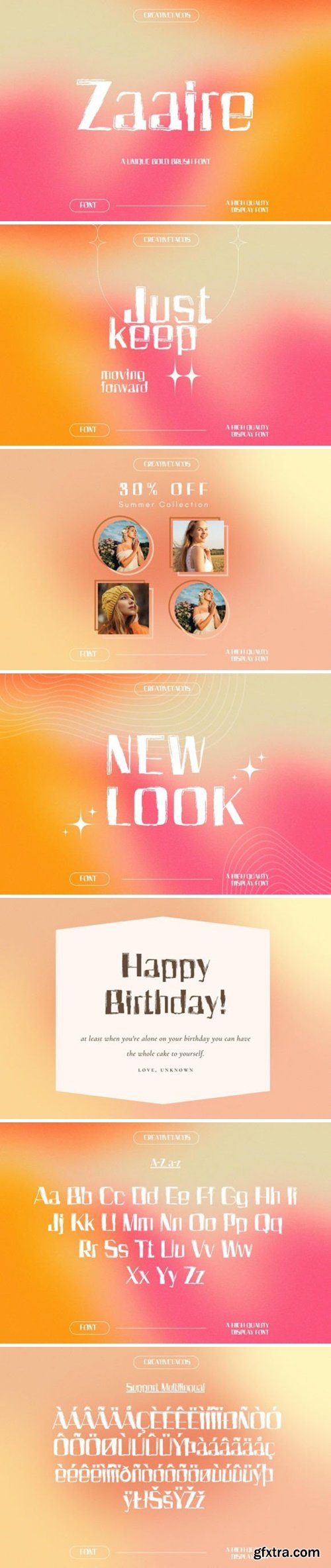
扎阿里刷字体
Zaaire is a creative typeface that adds a touch of artistic flair to any design project with its unique brush strokes and intricate details. It is your go-to font for just about anything! Use it for packaging, slideshows, logos, headlines, lettering, posters, branding, inspirational quotes, titles, magazine layouts, website designs, ads, invites, packaging design, book covers, and any other creative endeavor you can think of.